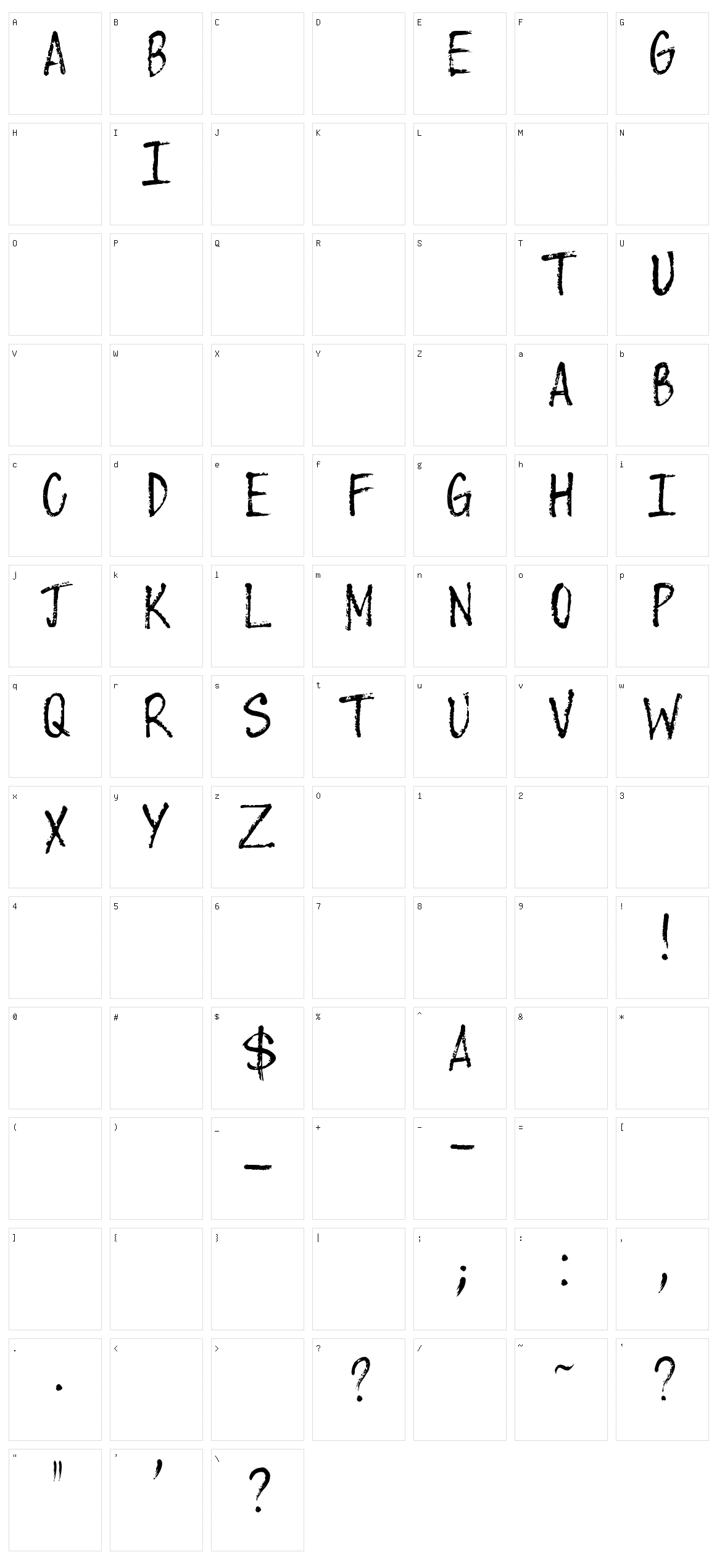
The free font When You're Gone is carefully designed by Poemhaiku, showcasing a thoughtful balance of creativity and usability and falls under the Trash font style. When you download the ZIP file, it contains only 696.89 KB of font files, making it lightweight and quick to download. Please review the license details below to understand permitted usage and distribution rights. If license information is not available, we recommend using this font for personal projects only or contacting the author directly for commercial usage permissions.